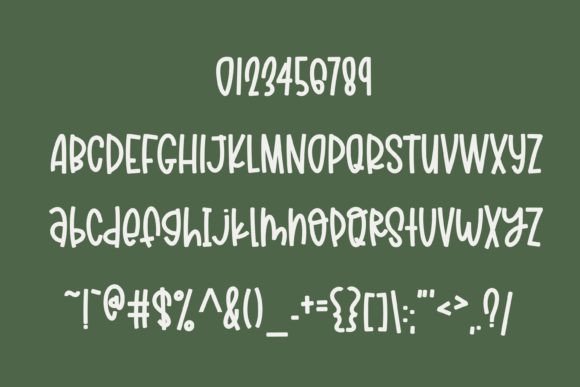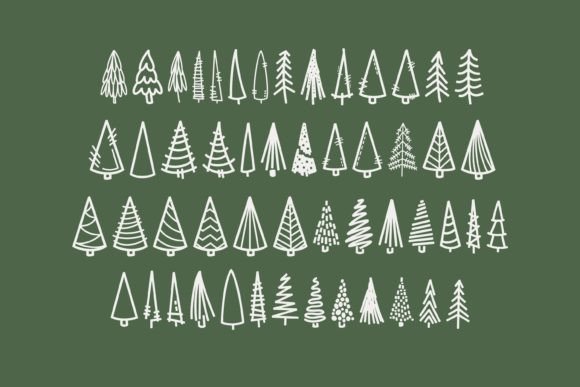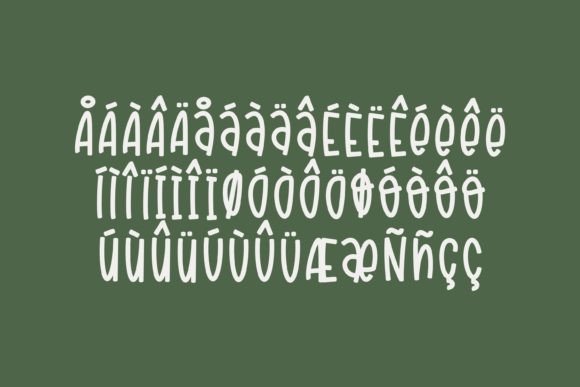
Introduction to Oh Christmas Tree Font
As the holiday season approaches, designers are on the hunt for the perfect font to add a dash of festive cheer to their creative projects. Have you ever found yourself stuck, scrolling through font libraries, searching for that elusive combination of whimsy and elegance to bring your Christmas-themed designs to life?
Enter Oh Christmas Tree Font, a delightful and high-quality design resource that’s sure to become your go-to choice for all your holiday needs. With its charming, hand-crafted letterforms, this font is the perfect addition to any creative project, from greeting cards and seasonal invitations to festive banners and holiday packaging.
Key Features of Oh Christmas Tree Font
- Unique, high-quality design for a creative project: Oh Christmas Tree Font is a perfect design resource for any festive or winter-themed project.
- Size: The font comes in a single size, making it easy to use in various design contexts.
- Resolution: The font is designed to be resolution-independent, ensuring it looks great at any size or resolution.
- Transparent background: The font features a transparent background, allowing for easy layering and composition in your design project.
- Perfect for holiday and winter-themed designs: Oh Christmas Tree Font is a great addition to any design project that requires a festive touch.
Honest Review: Oh Christmas Tree Font
As a designer, I’m always on the lookout for unique and high-quality design resources to elevate my creative projects. The Oh Christmas Tree Font is a great find, especially during the holiday season. I was excited to give it a try and see if it would add some festive flair to my designs.
- ✨ The font’s design is playful and whimsical, making it perfect for Christmas-themed projects.
- ✨ The transparent background option allows for seamless integration into various design elements.
- ⚠️ The font’s size and style options are somewhat limited, which may restrict its use in certain creative projects.
Overall, I was impressed with the Oh Christmas Tree Font’s design and functionality. While it may have some limitations, it’s an excellent resource for designers looking to add a touch of holiday magic to their projects. With a little creativity, I’m confident that this font will become a staple in my design toolkit.
Oh Christmas Tree Font
When using the Oh Christmas Tree Font, be sure to use it in conjunction with other design elements to create a cohesive look. You can also experiment with different font sizes and colors to add depth and interest to your design.
The Oh Christmas Tree Font is perfect for use in holiday-themed designs, such as Christmas cards and invitations. It can also be used in other creative projects, such as party decorations and gift tags.